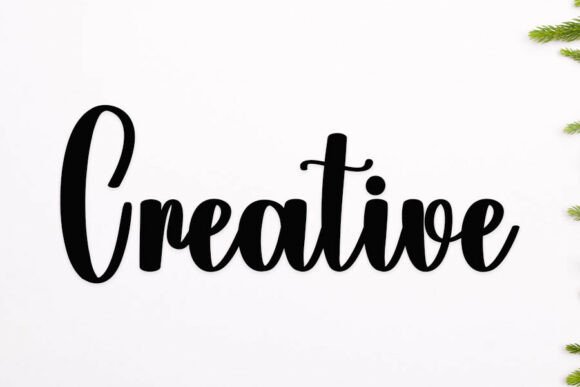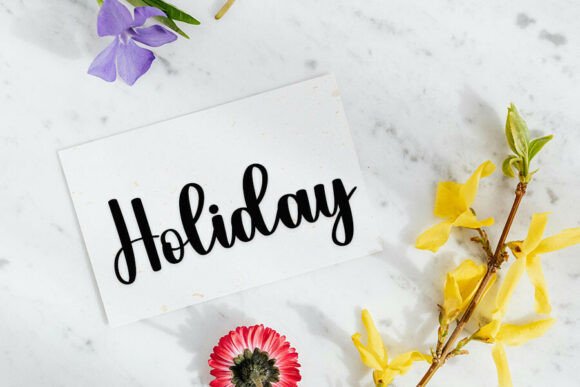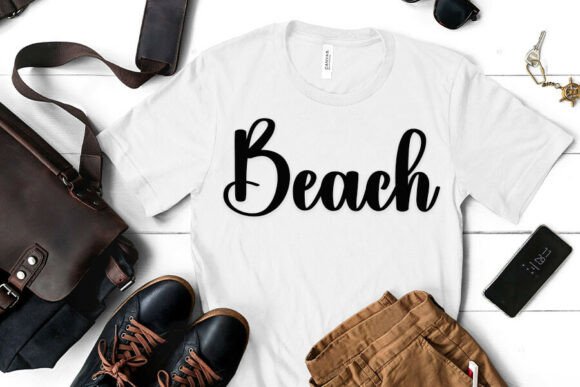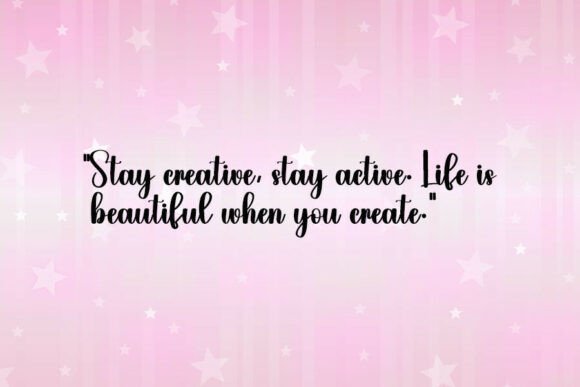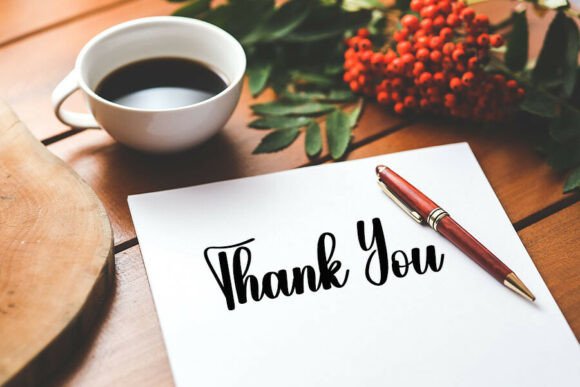
The Delicate Font: A Handwritten Gem for Creative Projects
I’ll never forget the time I was working on a wedding invitation project, and my client asked for a font that was both elegant and playful. I scoured the internet, tried countless fonts, but nothing seemed quite right. That was until I stumbled upon the Delicate font. It was like a breath of fresh air – a beautiful, handwritten font that perfectly captured the tone and feel of the project. In this article, I’ll share my experience with the Delicate font, its features, and how to make the most of it in your designs.
- ✨ The Delicate font is incredibly versatile, making it perfect for a wide range of projects, from letters and invitations to food product labels and titles.
- ✅ Its handwritten feel adds a touch of warmth and personality to any design.
- 💫 The font’s delicate lines and curves create a beautiful, eye-catching effect that’s sure to grab attention.
While the Delicate font is an excellent choice for many projects, there are a few things to keep in mind:
- 🤔 The font can be a bit finicky when it comes to kerning, so be sure to adjust the spacing to get the best results.
- ⚠️ Some of the glyphs and special characters may not be immediately obvious, so take some time to explore the font’s features.
The Story Behind Delicate Font
The Delicate font was designed by a talented typographer who’s passionate about creating beautiful, unique fonts for creative projects. Inspired by the elegance of handwritten script and the playfulness of modern calligraphy, the Delicate font was crafted to bring a touch of sophistication and whimsy to any design.
Q: What type of projects is Delicate font best suited for?
A: Delicate font is perfect for a wide range of projects, including letters, invitations, food product labels, titles, and more.
Q: Is Delicate font easy to read?
A: Yes, Delicate font is designed to be highly legible, making it perfect for body text, headings, and titles.